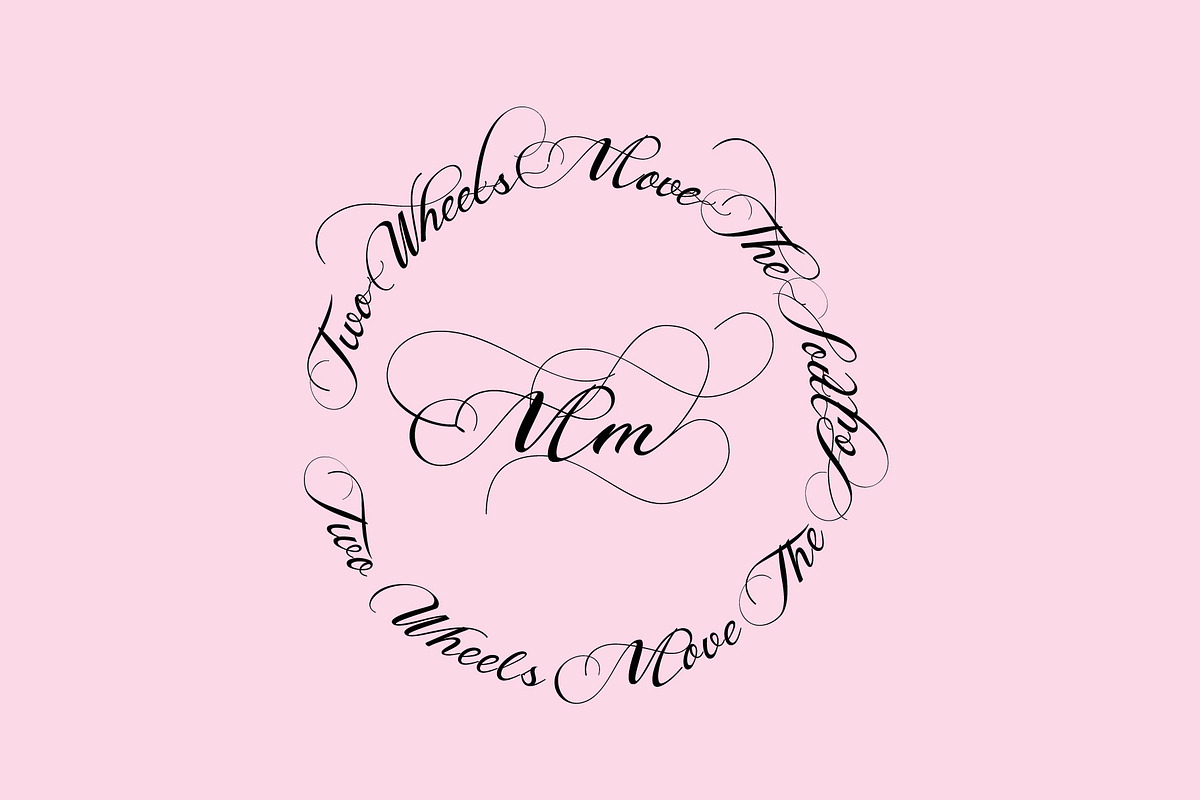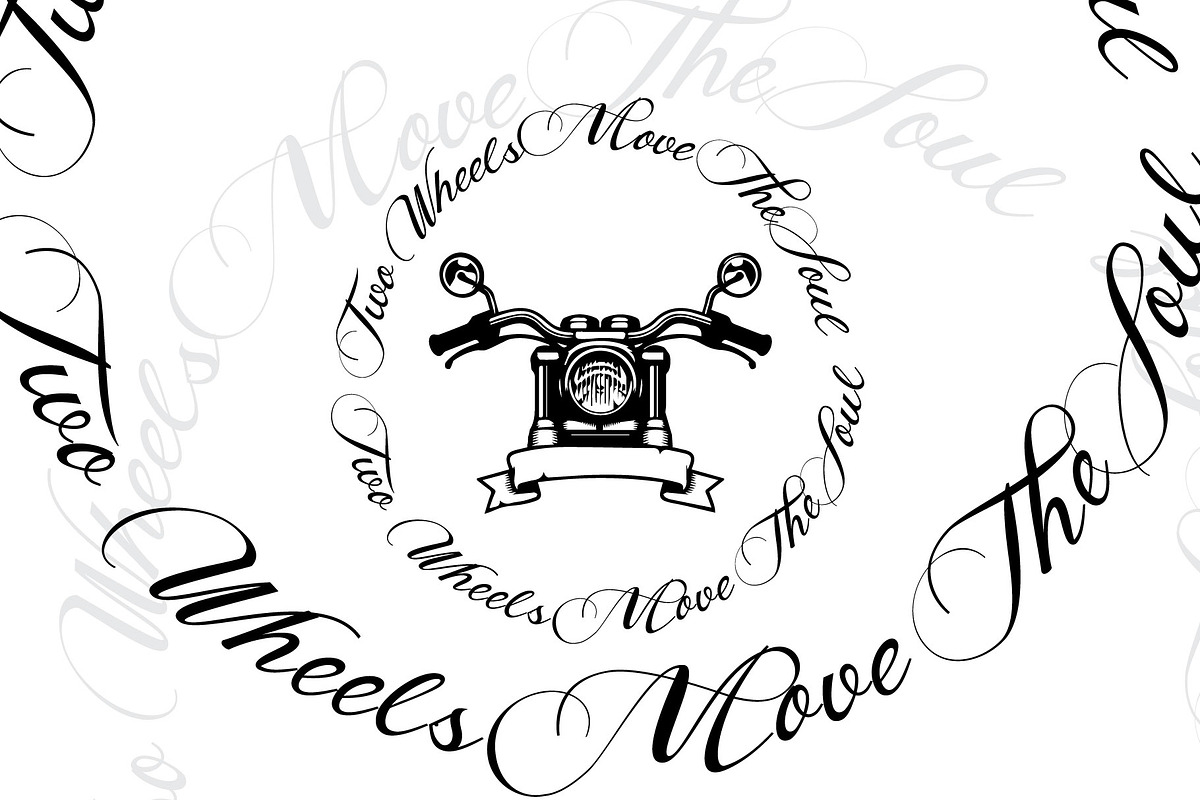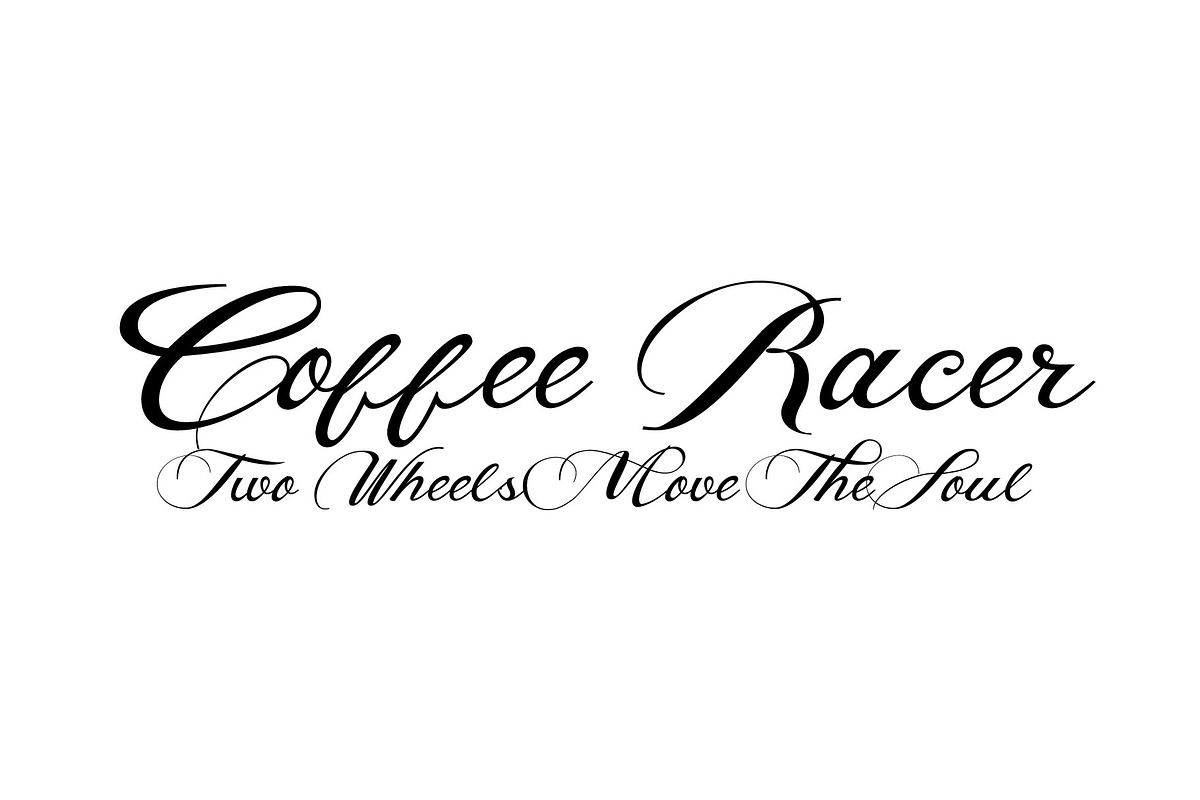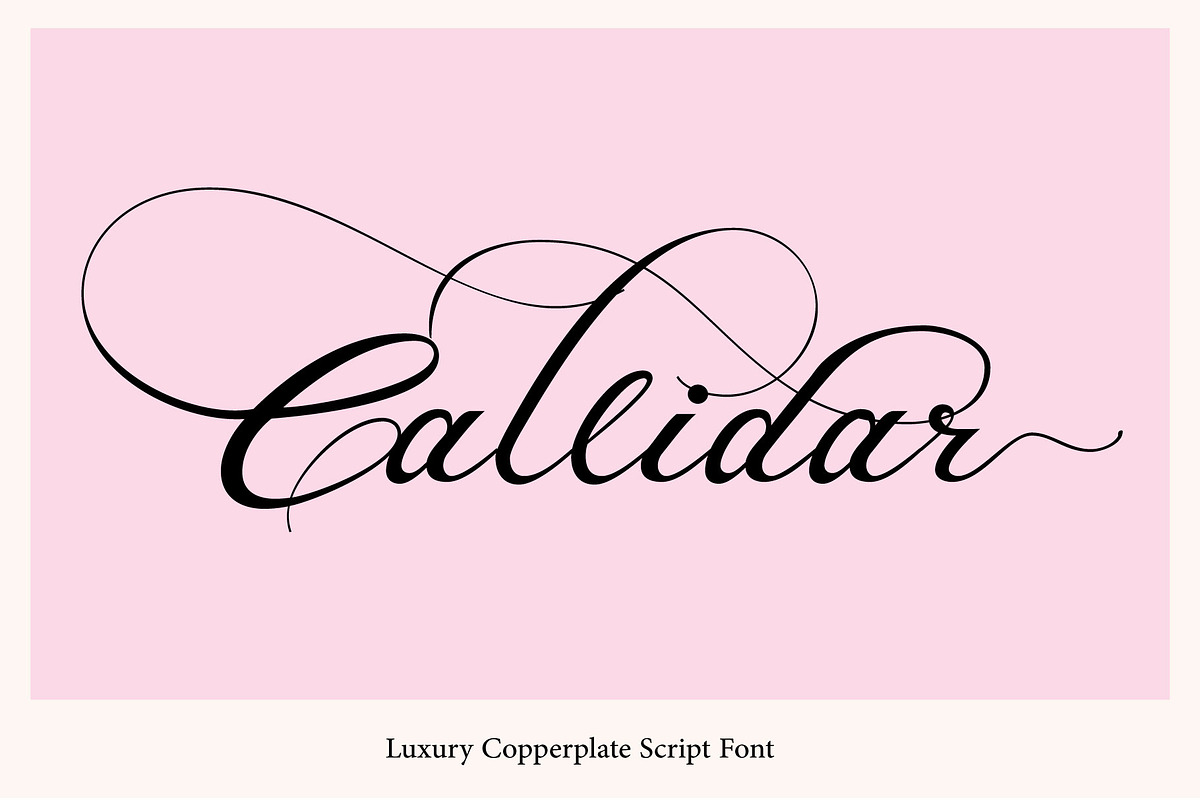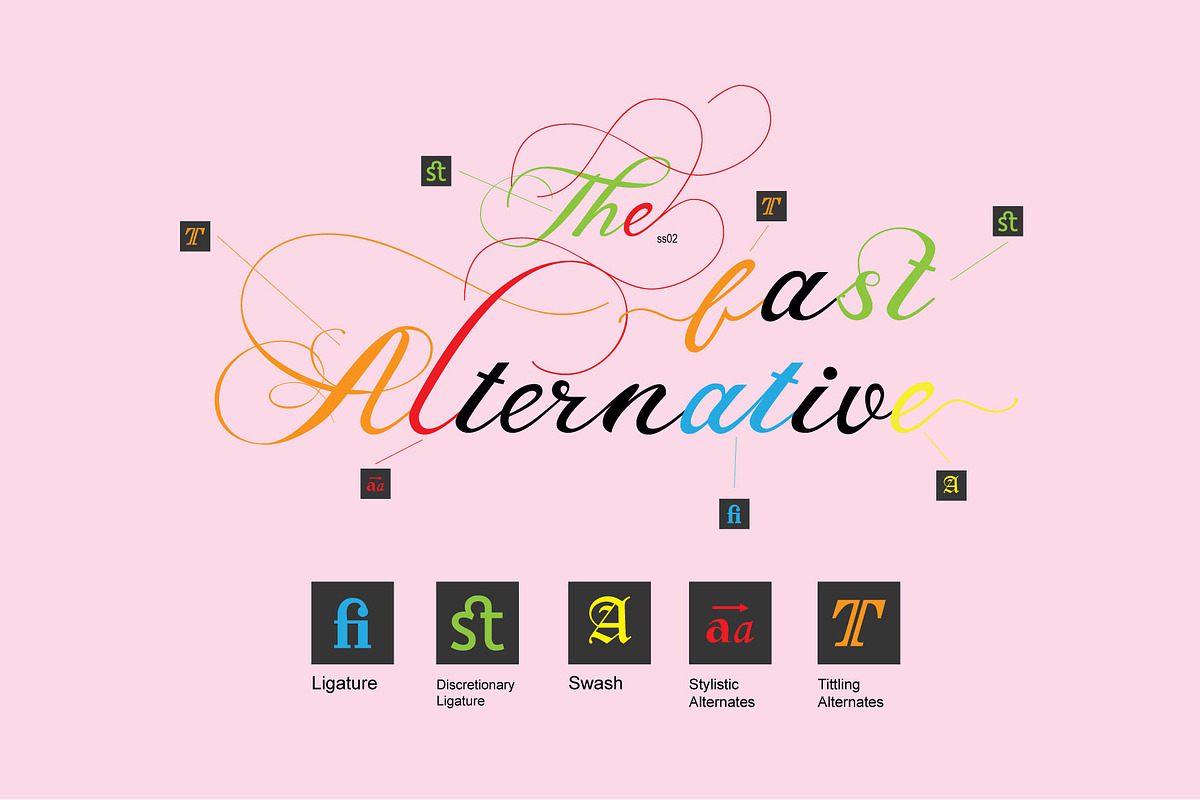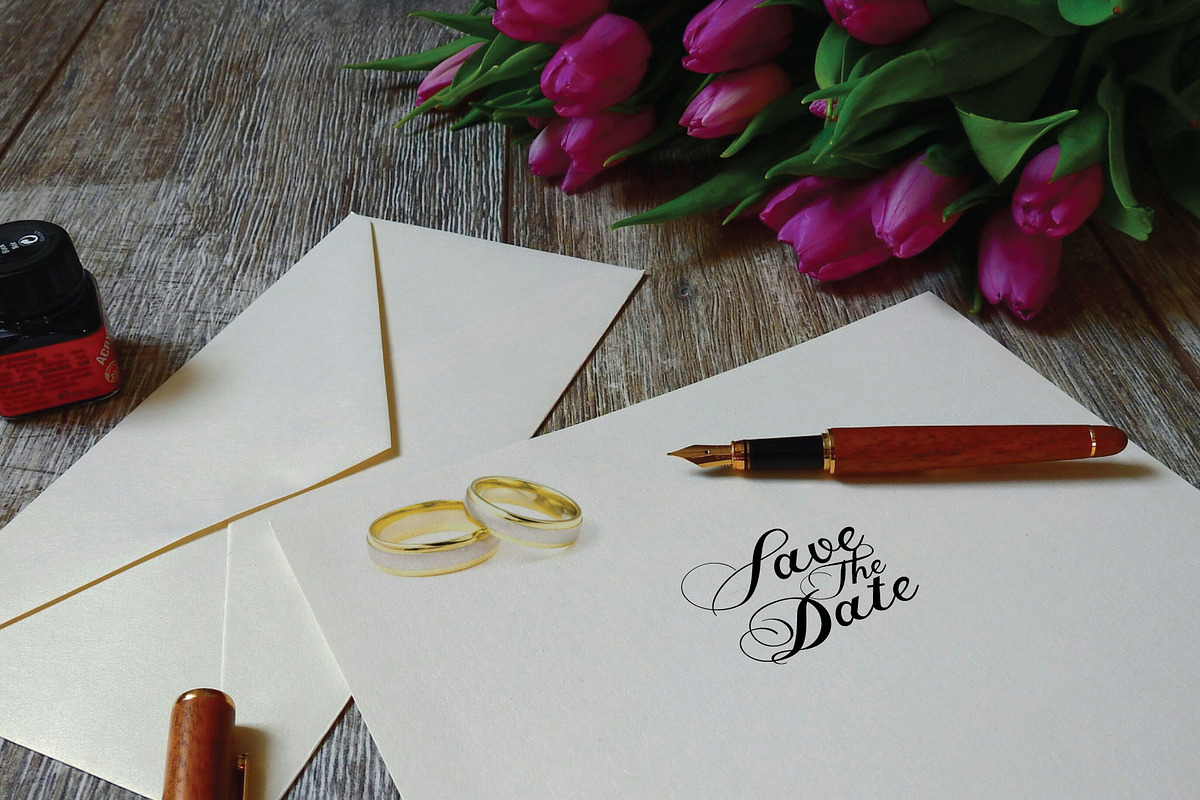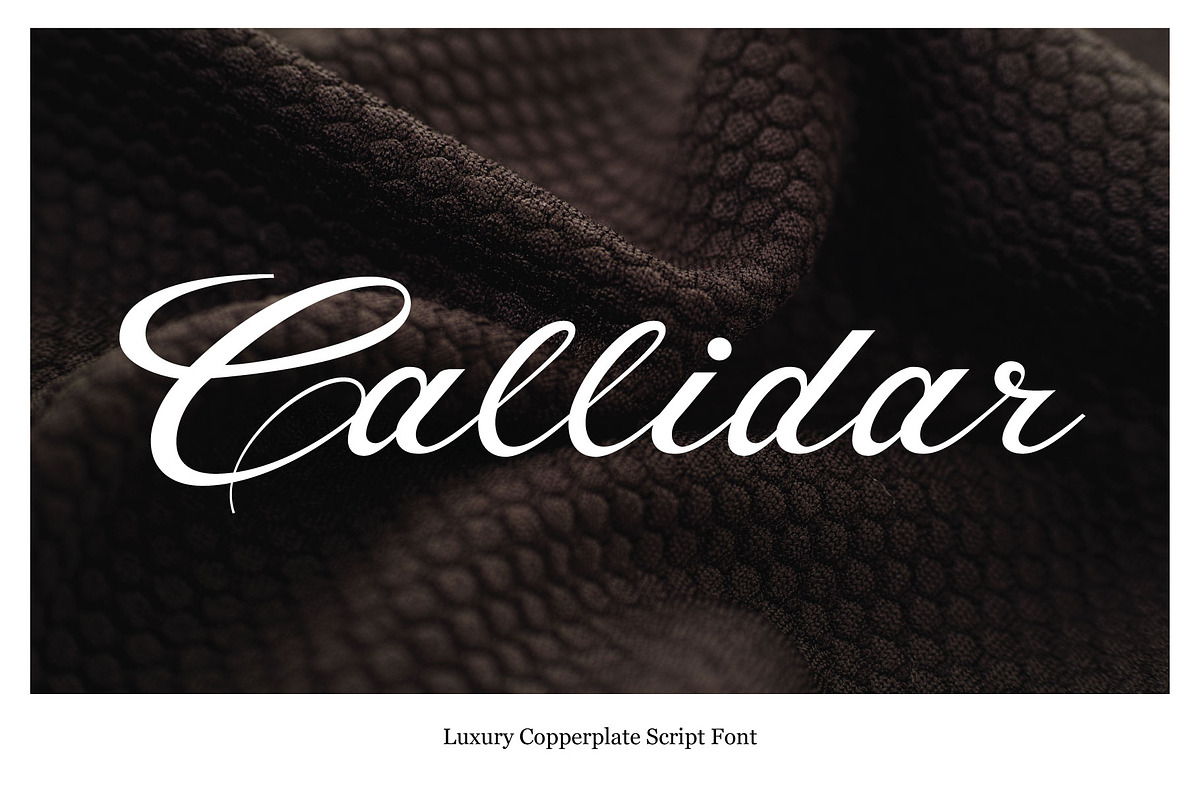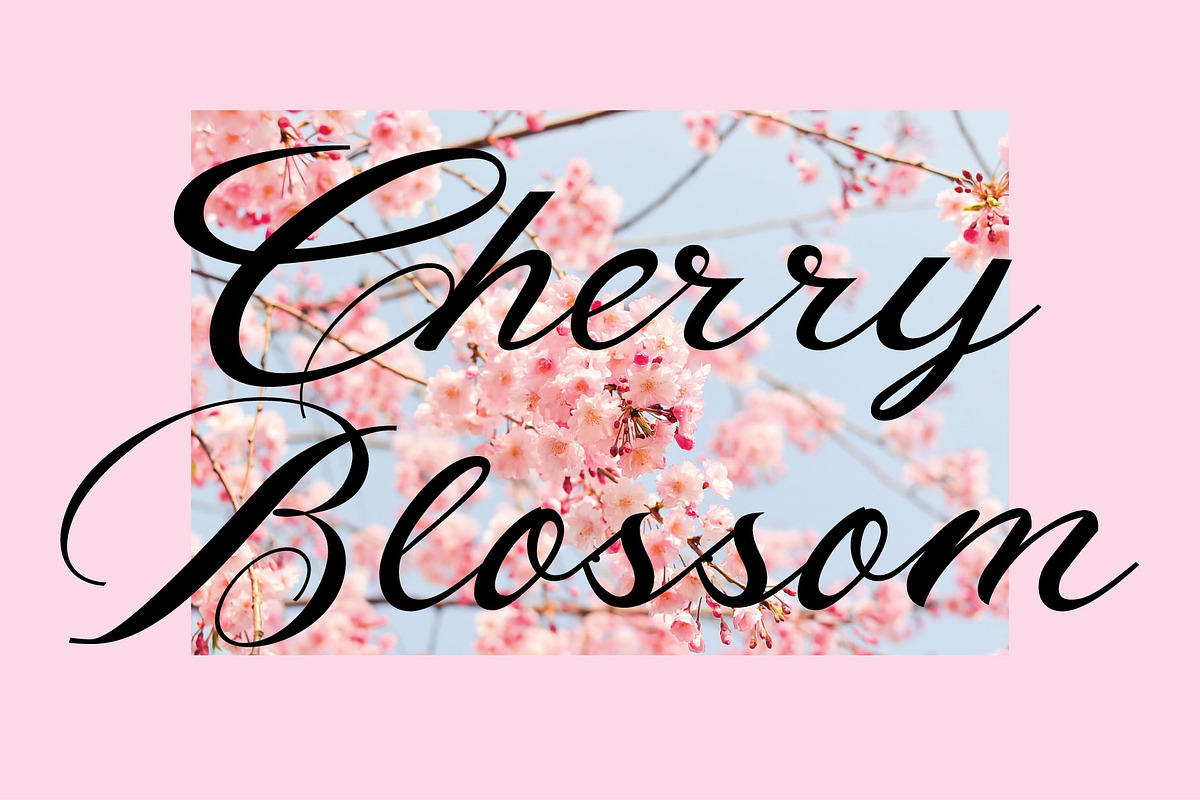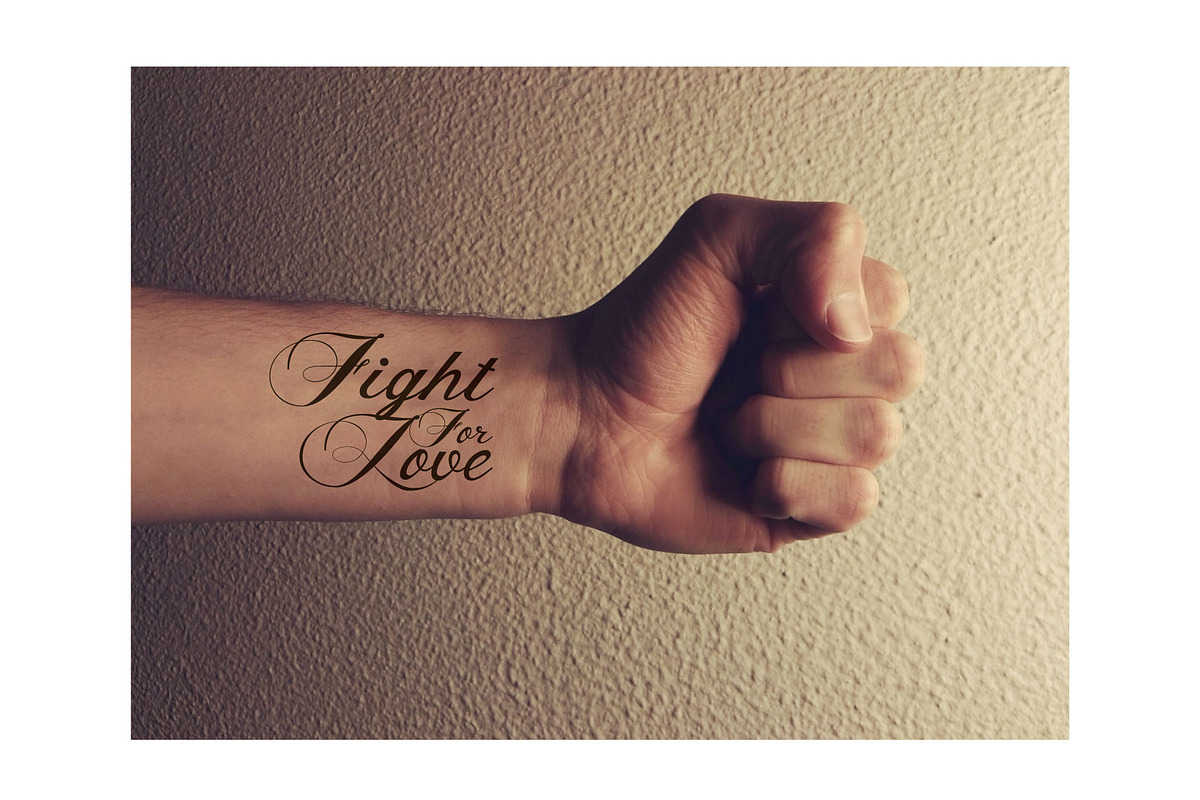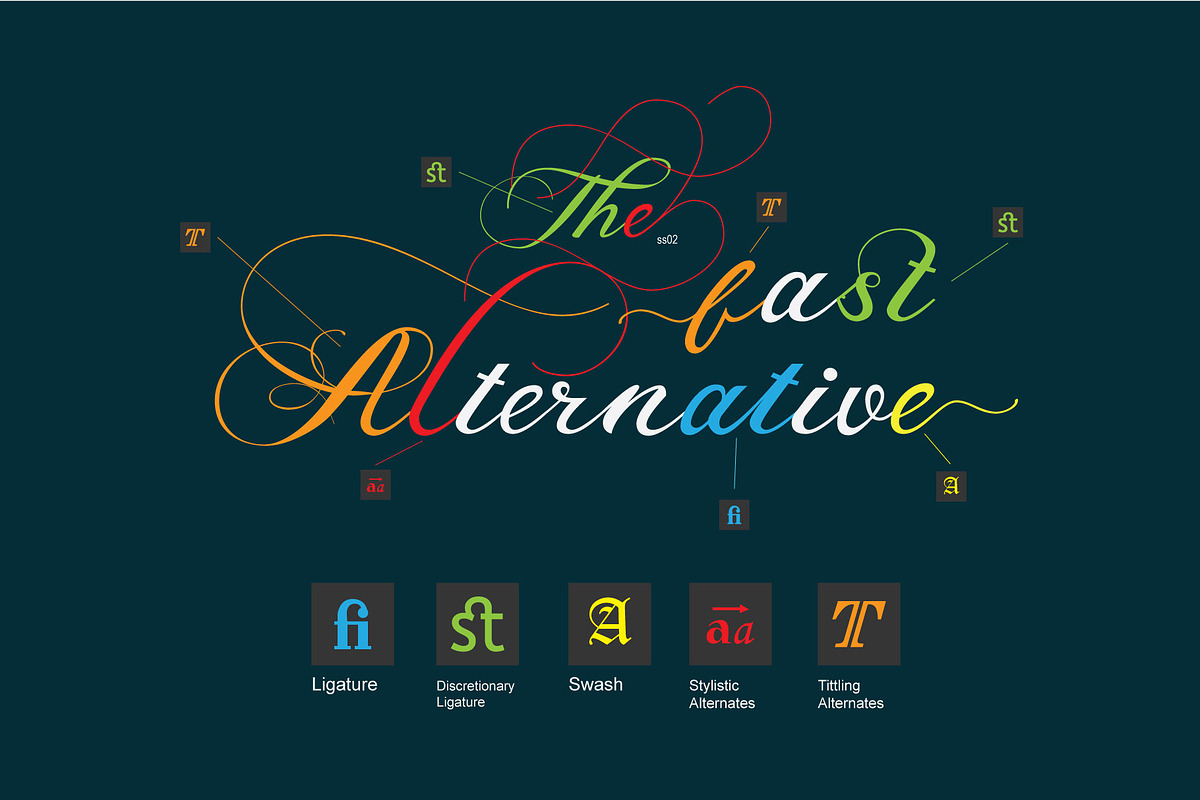
Callidar - Copperplate Script
Callidar is a beautifully crafted script font inspired by classic typography while embracing a fresh, modern handwritten style. Designed with smooth curves, elegant strokes, and natural letter connections, Callidar adds a sophisticated and artistic touch to any creative project. Its timeless appearance makes it an excellent choice for designers who want to create eye-catching visuals with warmth and personality.
Perfect for both large headlines and smaller text, Callidar maintains exceptional readability while preserving its unique handcrafted character. Whether you're creating logos, branding materials, packaging, product labels, wedding invitations, greeting cards, social media graphics, book covers, magazine titles, posters, apparel, or website headers, this versatile script font delivers a polished and professional look.
Callidar works seamlessly across both digital and print media, making it suitable for websites, advertisements, presentations, motion graphics, and promotional content. Pair it with clean sans-serif or elegant serif fonts to achieve stunning typography combinations for any design style. If you're looking for a script font that combines classic inspiration with modern elegance, Callidar is the perfect addition to your font collection, helping every project stand out with beauty, creativity, and timeless appeal.